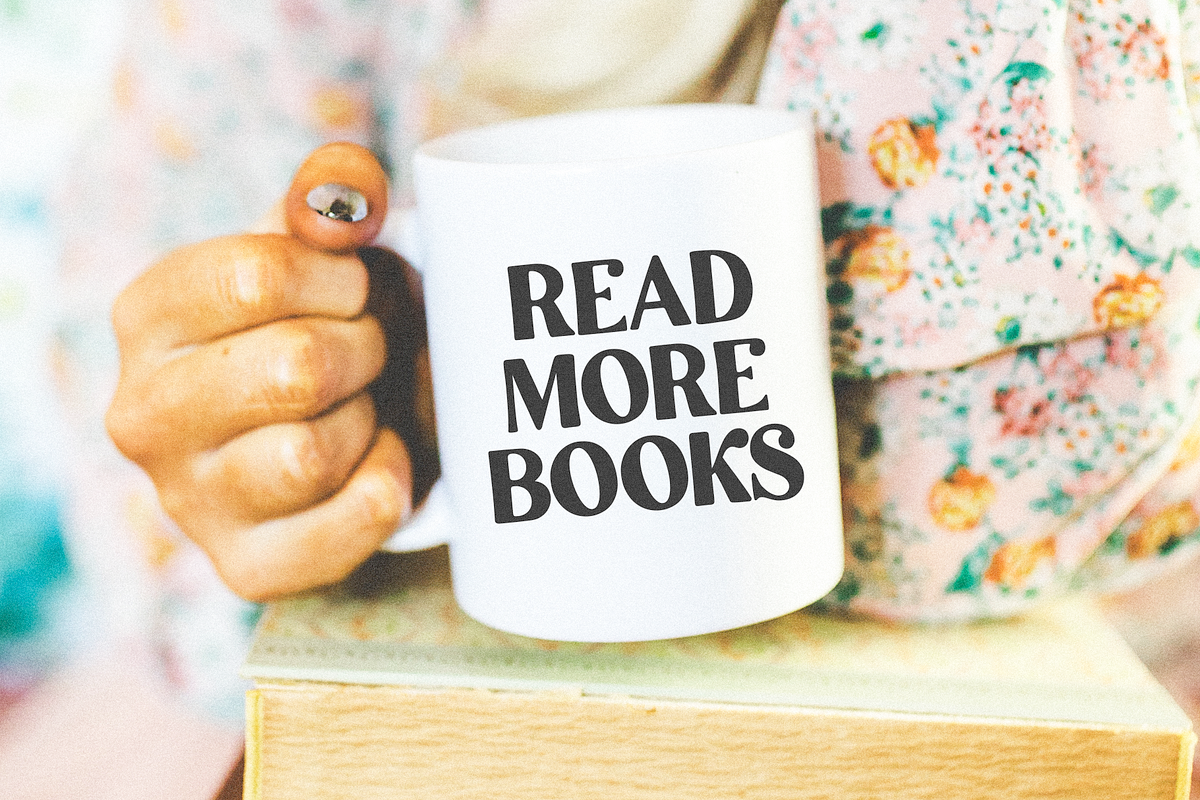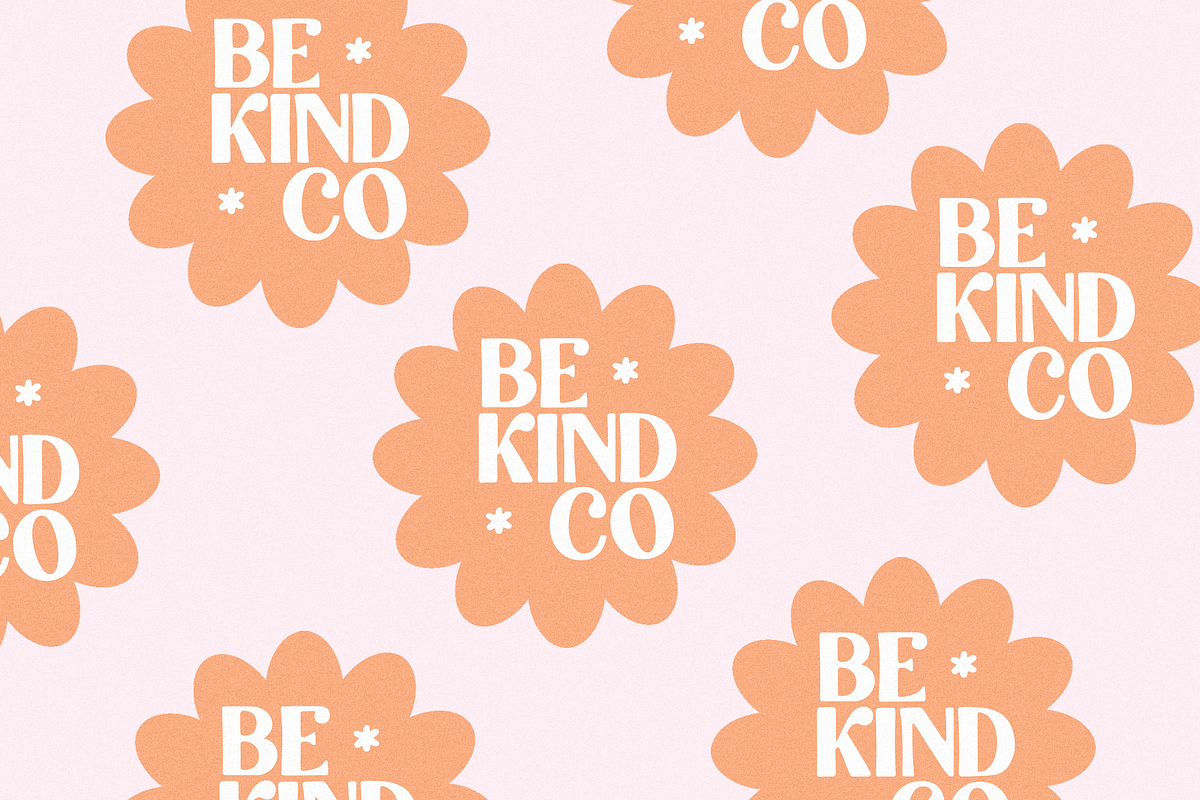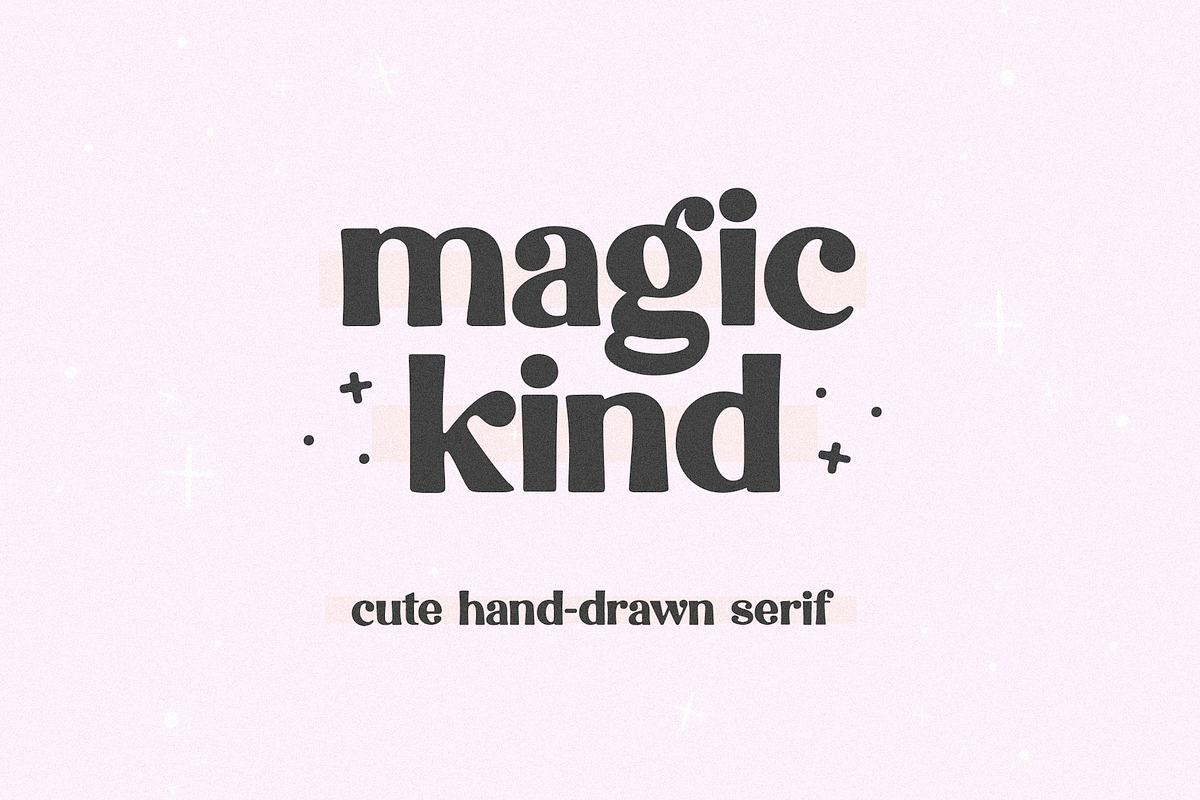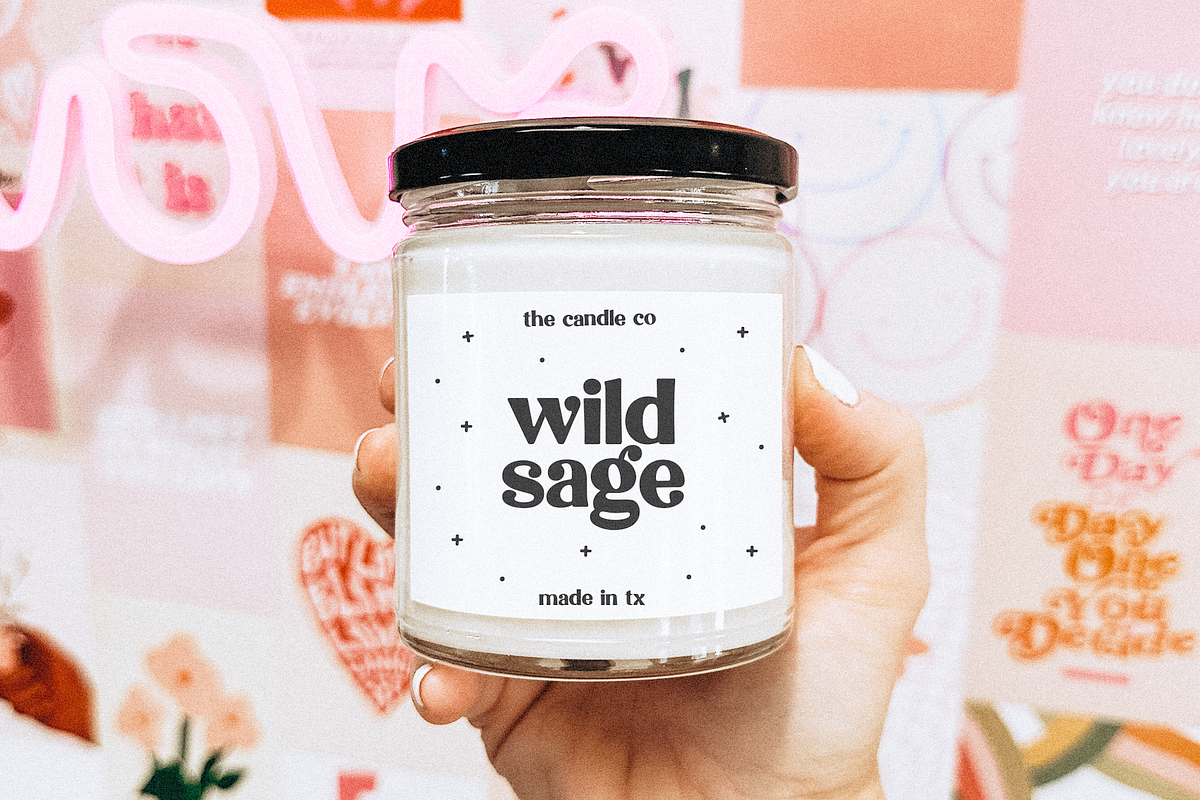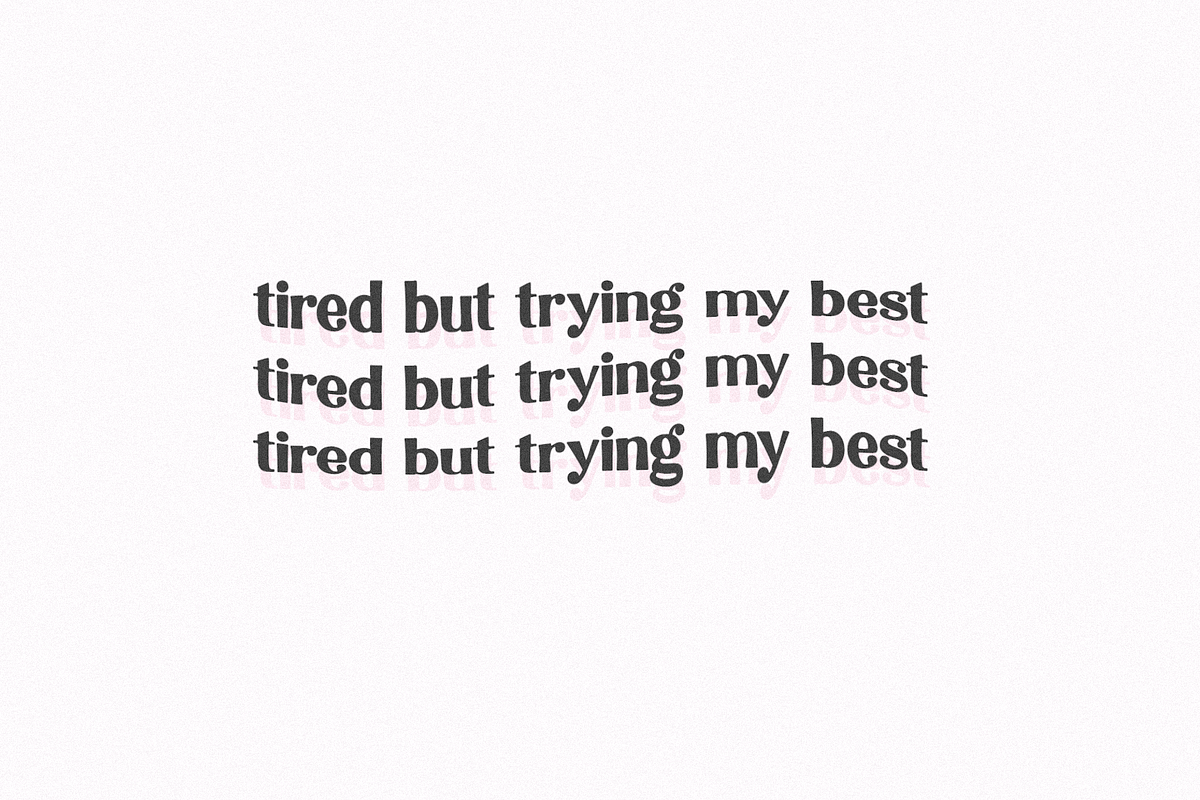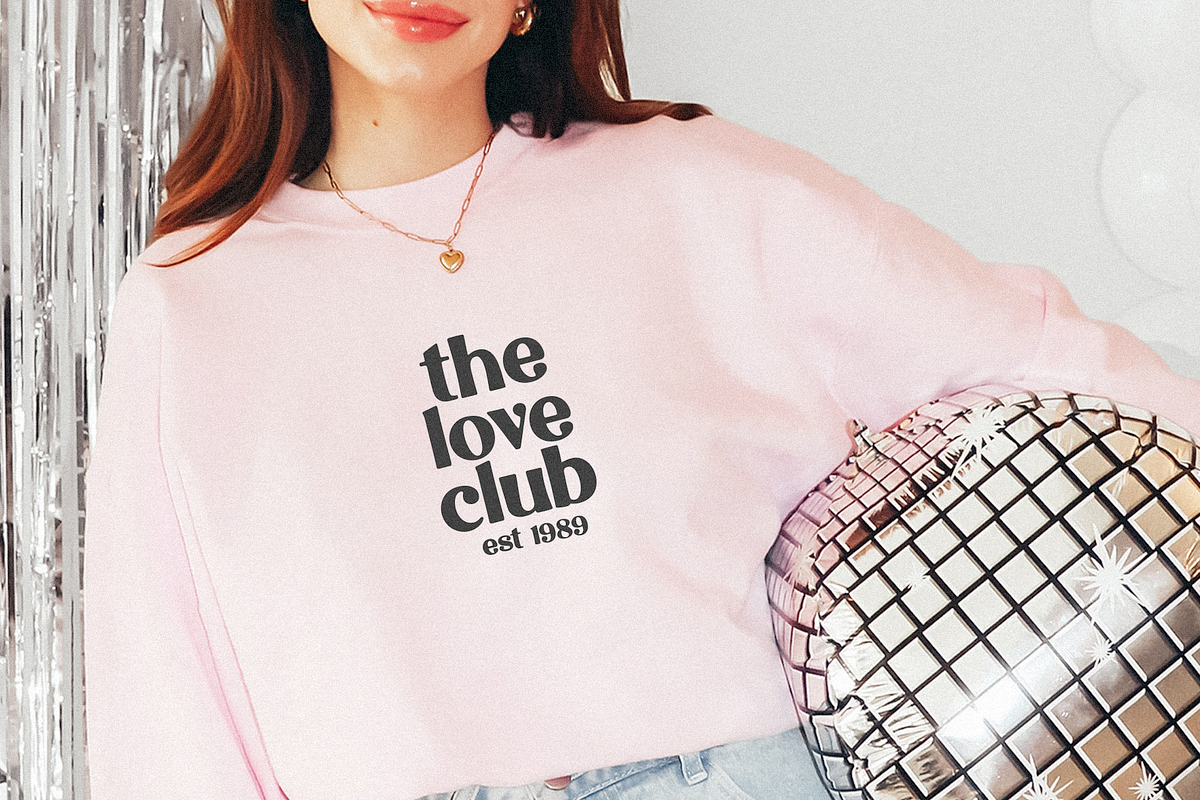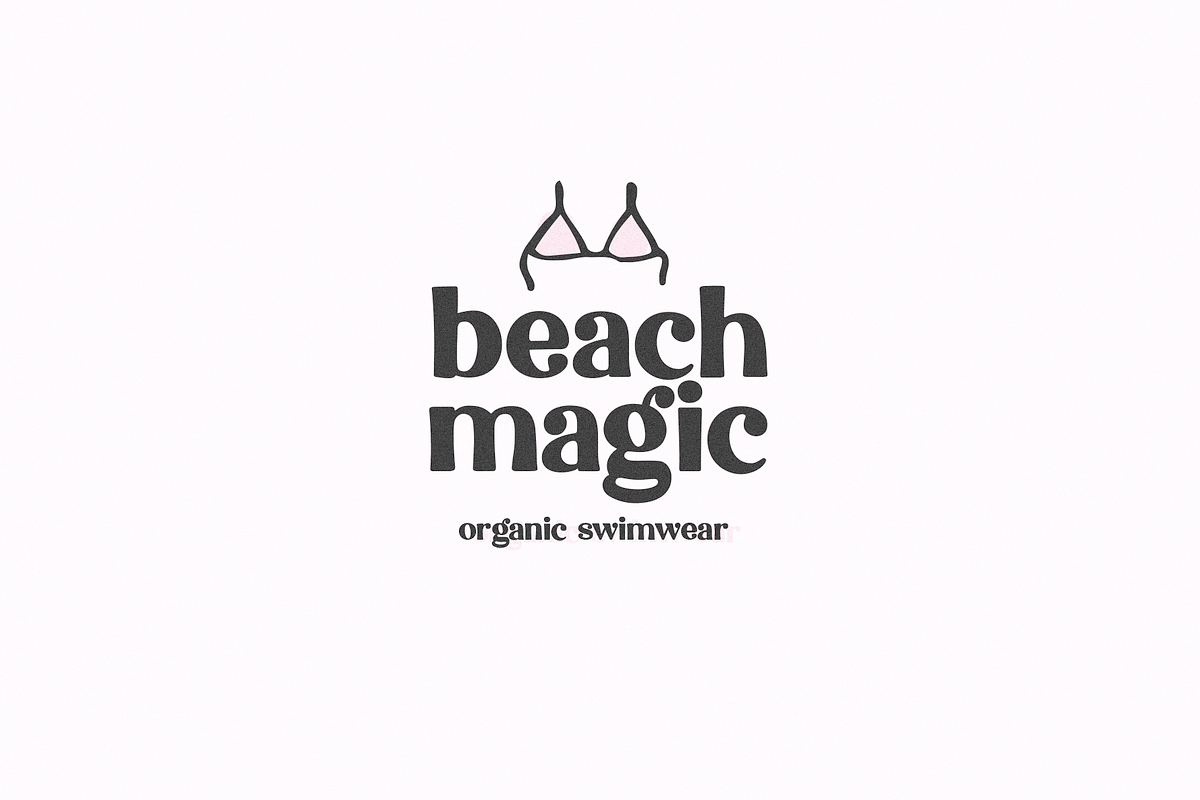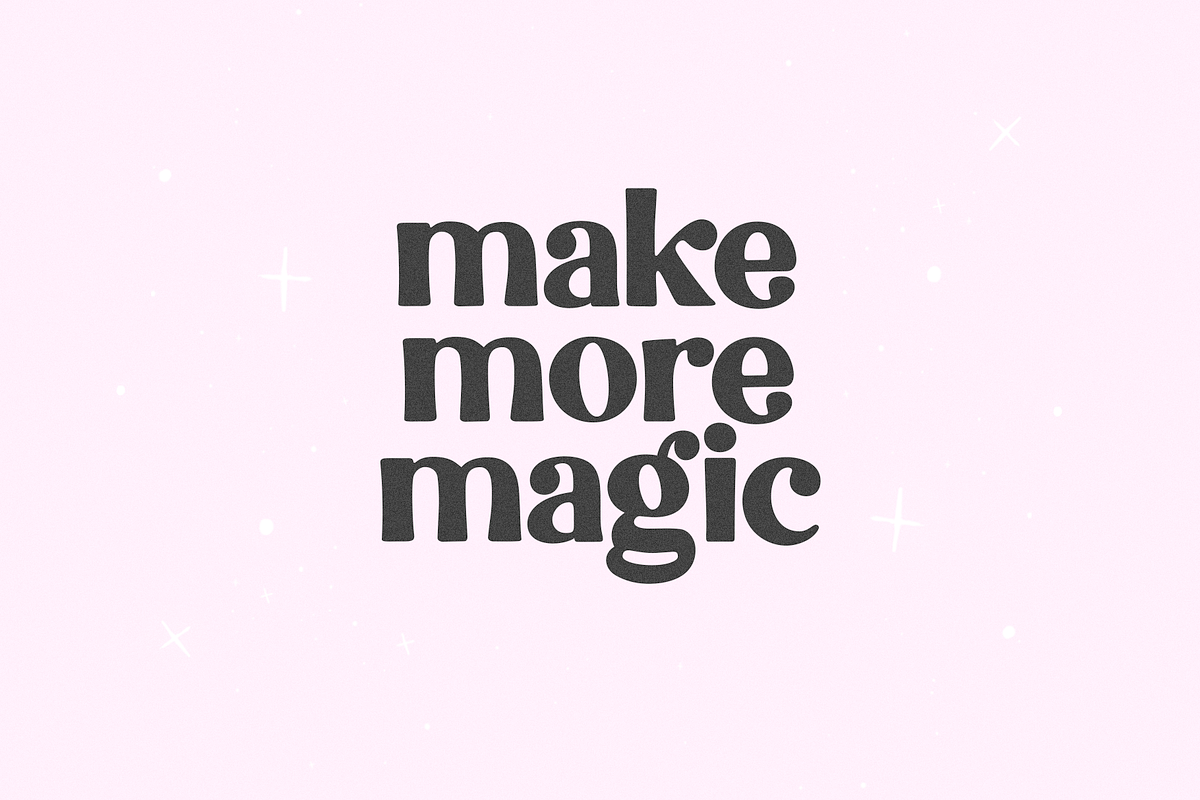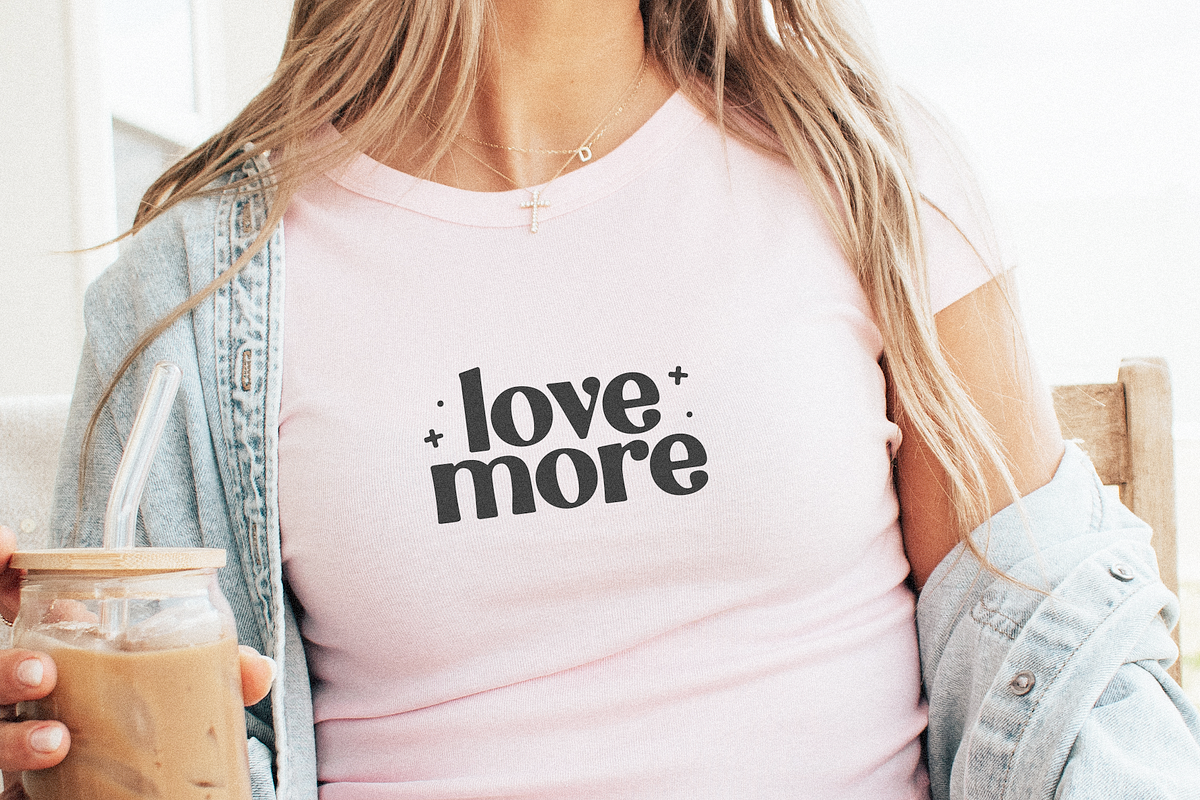
Magickind | Hand-drawn Serif Font
Magickind is a hand-drawn serif font.
This font is perfect for your retro designs, logos, shirts, mugs, stickers, procreate, teachers, cricut projects, goodnotes, planners, quotes, packaging, advertisements and more!